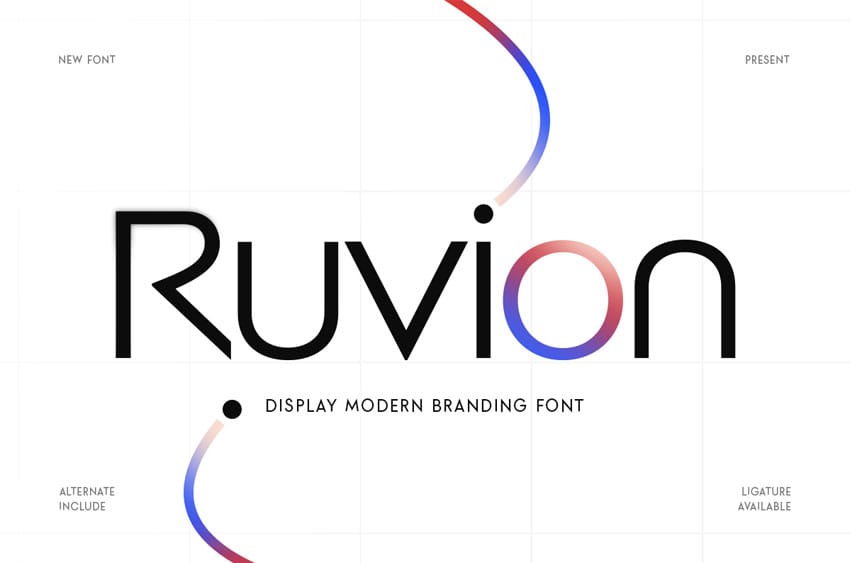
Ruvion Font
Ruvion Font Display Modern Techno Branding Font Ruvion is a modern techno display font designed to deliver a bold, futuristic, and high-impact branding presence. Featuring sharp geometry, clean structure, and a strong techno character, Ruvion is perfect for logos, branding, headlines, posters, digital products, and technology-focused visual identities.
Created for innovation-driven design, Ruvion combines modern aesthetics with excellent readability. Its display techno style makes it ideal for startups, tech brands, gaming projects, creative studios, and digital businesses that want a powerful, cutting-edge, and contemporary typographic identity.
Ruvion – Display Modern Techno Branding Font Features:
• Modern techno display style with strong branding impact
• Ideal for logos, tech branding, headlines, and digital visuals
• Uppercase, lowercase, numerals, and punctuation included
• Clean geometry with futuristic visual balance
• Perfect for modern, innovative, and technology-based designs
Define the future of your brand with Ruvion – a modern techno display font built for bold branding.